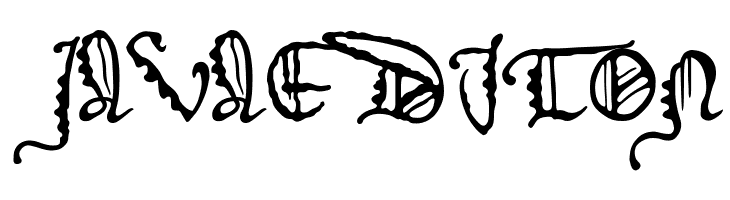
Abstract Groovy Font
- Font: Abstract Groovy
( Fonts by www.pia-frauss.de )
An ornate, medieval-inspired font with high contrast and decorative flourishes.